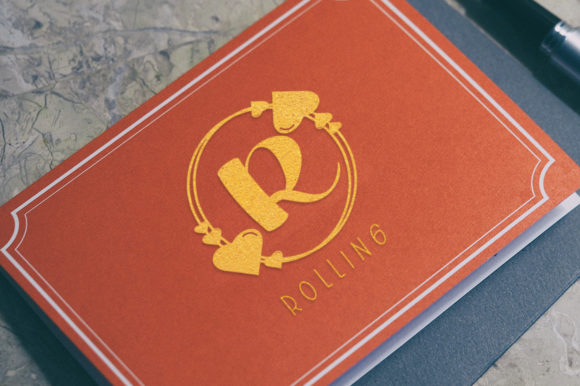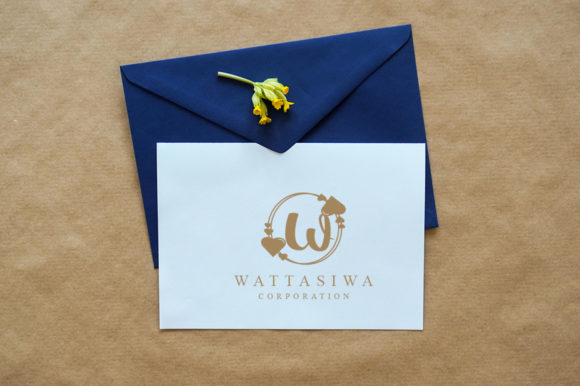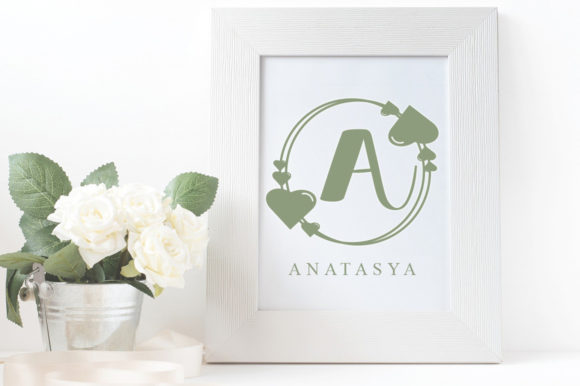
Hearth Love Monogram Font: Elevate Your Designs with Romance and Elegance
In the world of design, typography plays a crucial role in conveying emotions and setting the tone for various projects. For those seeking a font that exudes romance, love, and elegance, the Hearth Love Monogram Font is an exquisite choice. This dainty and unique decorative font is perfect for adding a touch of sophistication to love letters, wedding invitations, and a myriad of design ideas.
The Charm of Hearth Love Monogram Font
Hearth Love Monogram Font is a beautifully crafted typeface that boasts a distinctive, hand-crafted look. Its delicate and intricate design makes it an ideal selection for projects that require a personal touch. Whether you’re a designer looking to enhance your client’s wedding invitation or a crafter seeking to add a romantic flair to your handmade cards, this font is sure to impress.
Key Features of Hearth Love Monogram Font
- Unique and Dainty Design: The Hearth Love Monogram Font features a one-of-a-kind design that sets it apart from more traditional fonts. Its dainty appearance makes it perfect for projects that require a subtle yet elegant touch.
- Romantic and Lovely Aesthetic: This font is designed to evoke feelings of love and romance, making it an excellent choice for wedding-related projects, love letters, and other designs that aim to capture the heart.
- Versatile Application: The Hearth Love Monogram Font can be used across a wide range of design projects, including invitations, greeting cards, posters, and digital graphics.
- Ease of Use: This font is easy to integrate into various design software, making it accessible to both professional designers and hobbyists.
Applications of Hearth Love Monogram Font
The versatility of the Hearth Love Monogram Font makes it suitable for numerous applications. Here are a few ideas to get you started:
- Wedding Invitations: Add a touch of elegance and romance to your wedding invitations with this beautiful font. It’s perfect for printing or digital invites.
- Love Letters: Make your love letters even more special with the Hearth Love Monogram Font. Its romantic aesthetic will surely make your letters unforgettable.
- DIY Crafts: Crafters can use this font to add a personal touch to their handmade projects, such as customized cards, scrapbooking, and other paper crafts.
- Digital Designs: Use the Hearth Love Monogram Font in your digital designs, such as social media graphics, blog headers, and website elements, to add a romantic flair.
Tips for Using Hearth Love Monogram Font
To make the most of the Hearth Love Monogram Font, consider the following tips:
- Pair with Complementary Fonts: Combine the Hearth Love Monogram Font with simpler fonts to create visual interest and hierarchy in your designs.
- Experiment with Colors: While the font itself is elegant, experimenting with different colors can enhance its beauty. Soft pastels, gold, and blush tones work particularly well.
- Pay Attention to Size: The delicate nature of the font means it can get lost if the design is too busy or if the font size is too small. Ensure it’s used in a size that stands out.
The Hearth Love Monogram Font is a beautiful addition to any designer’s or crafter’s toolkit. Its unique, dainty, and romantic design makes it perfect for a variety of projects, from wedding invitations to DIY crafts. By incorporating this lovely font into your designs, you’re sure to create pieces that are not only visually stunning but also emotionally resonant. So, why wait? Download the Hearth Love Monogram Font today and let your creativity shine with elegance and romance.